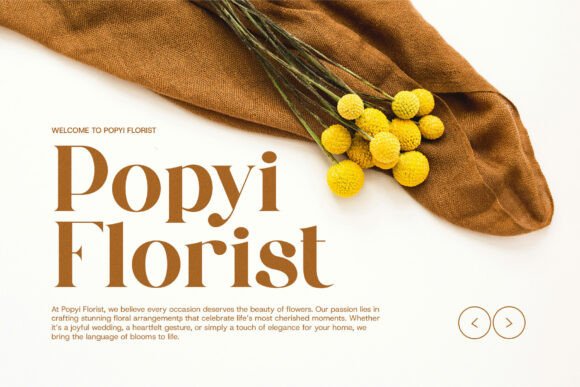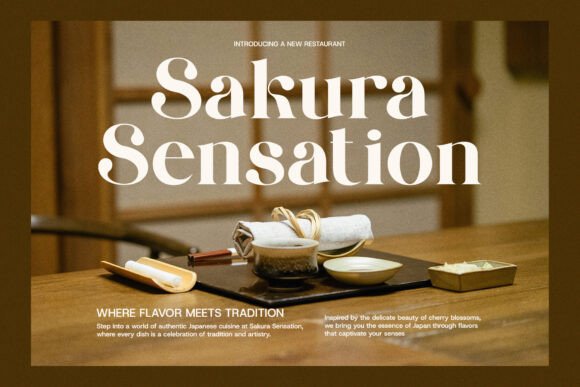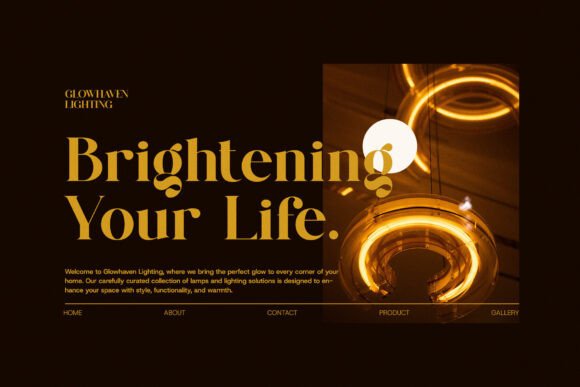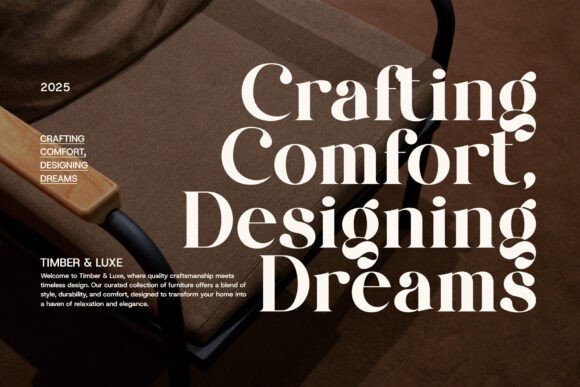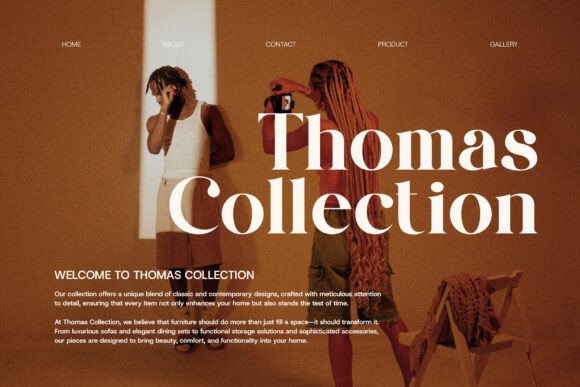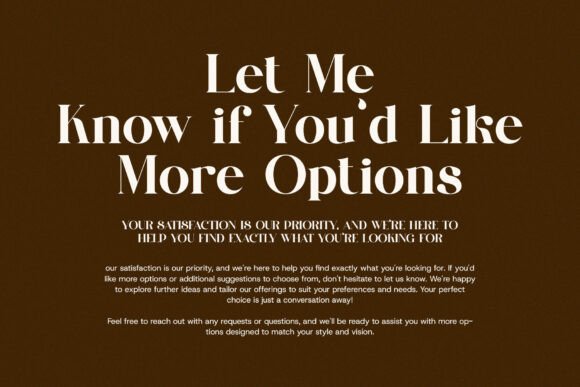
Cingker Modern Display Serif Font: Elevate Your Designs with Elegance and Boldness
In the world of typography, finding the perfect font that combines elegance and boldness can be a daunting task. However, with Cingker Modern Display Serif Font, designers and crafters can now add a touch of sophistication and contemporary style to their creative projects. This captivating font is designed to make a statement, boasting striking serifs and carefully crafted letterforms that exude luxury and refinement.
Unique Features of Cingker Font
One of the standout features of Cingker Modern Display Serif Font is its unique ligatures and alternate characters. These distinctive elements provide a customizable flair, allowing designers to add a personal touch to their logos, branding, and other creative endeavors. With Cingker, you can create eye-catching designs that are both stylish and memorable.
Versatility and Style
Cingker Modern Display Serif Font is incredibly versatile, making it suitable for a wide range of design applications. Whether you’re designing for a high-end boutique, a modern restaurant, or a luxury product line, this font is sure to impress. Its elegant design makes it ideal for:
- Eye-catching logos that make a lasting impression
- Premium product packaging that stands out on store shelves
- Impactful website headings that capture visitors’ attention
Additionally, Cingker’s strong, confident presence ensures that it stands out in advertisements, magazines, and editorial layouts. Its readability also ensures that smaller text remains sharp and polished, making it perfect for body text and other written content.
Seamless Integration into Digital and Print
Cingker Modern Display Serif Font boasts a modern aesthetic that blends seamlessly into both digital and print applications. This makes it an excellent choice for designers who work across multiple mediums. Whether you’re creating a website, social media graphics, or print materials, Cingker is sure to deliver a consistent and stylish look.
Cingker Modern Display Serif Font is a must-have for designers and crafters who want to elevate their designs with elegance and boldness. With its sophisticated and contemporary style, this font is sure to become a staple in any designer’s toolkit. Whether you’re working on a personal project or a client’s brief, Cingker is the perfect choice for anyone looking to make a statement.
Key Benefits of Using Cingker Font
- Elegant and bold design: Cingker Modern Display Serif Font combines sophistication and confidence, making it perfect for high-end designs.
- Customizable: Unique ligatures and alternate characters provide a distinctive touch to your designs.
- Versatile: Suitable for a wide range of design applications, from logos and branding to website headings and print materials.
- Readability: Cingker’s clear and polished design ensures that smaller text remains sharp and easy to read.
In conclusion, Cingker Modern Display Serif Font is an exceptional choice for designers and crafters who want to add a touch of elegance and boldness to their creative projects. With its unique features, versatility, and seamless integration into digital and print applications, Cingker is sure to become a go-to font for anyone looking to make a statement.